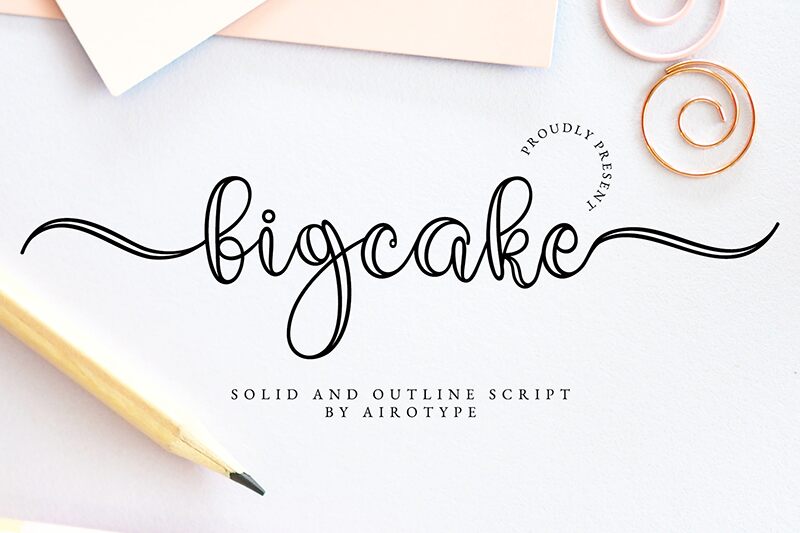
Bigcake
Bigcake font is a free handwritten font by Airotype Studio, with elegant, whimsical, and friendly mellow characters. Featuring a hand-drawn appearance with contemporary appeal, this beautiful script is not like most of the fancy display options – this one is customizable without boundaries! Pick your size and color and you’ll get stunning outcome each time.
Use it for invitations, greeting cards, gift wrapping paper design or branding purposes. Its smooth curves makes it a solid choice for logo design, monograms and typography quotes. It suits book covers especially kids-related stuff such as comics. Connect with customers in a lovely way on social media posts or website headers!